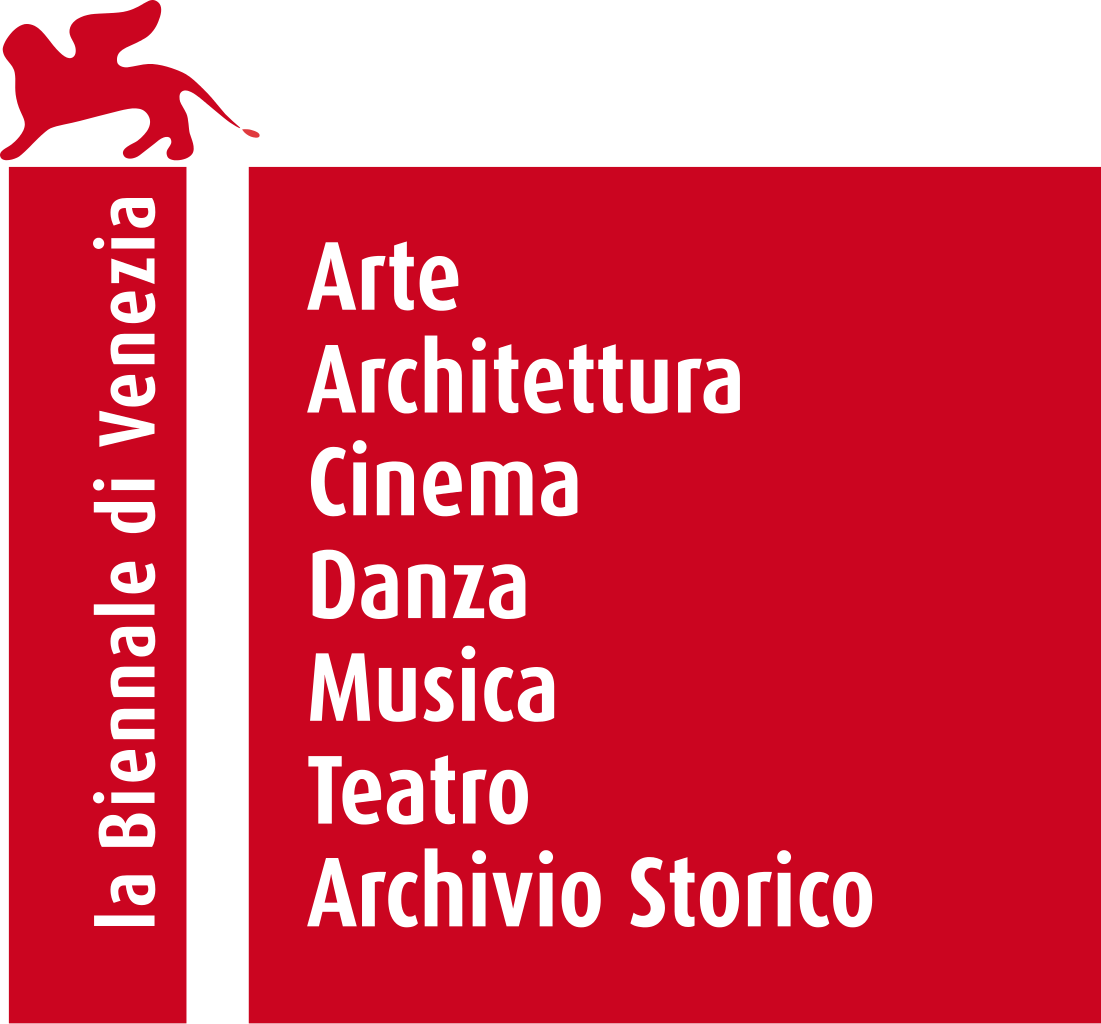
Venice Biennale Font
Fonts in UseThe Venice Biennale is one of the world's oldest and most prestigious international art exhibitions, held every two years in Venice, Italy. It features contemporary art from around the globe and attracts thousands of visitors to its various exhibitions and events.
The exhibition's logo employs the FF Dax Condensed Medium typeface, which is a humanist sans-serif font crafted by Hans Reichel and released by the FontFont library. You can learn more about the FF Dax font family here.